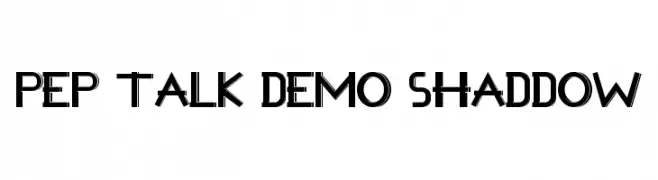
A playful, blocky font inspired by interlocking bricks, perfect for creative projects.
A bold, decorative font with a gradient effect and three-dimensional style.
A bold, modern font with a unique shadow effect, ideal for impactful headlines.
A bold, modern font with thick, uniform strokes and a strong visual impact.
A dripping, horror-themed font with a playful, eerie design.
A bold, graffiti-inspired font with a distinctive dripping effect.
A bold, brush-textured font with an artistic, hand-painted style.
A bold, geometric font with a dynamic halftone pattern.
A bold, distressed font with a rugged, collegiate style.
A futuristic, geometric hollow font with bold outlines and sharp edges.